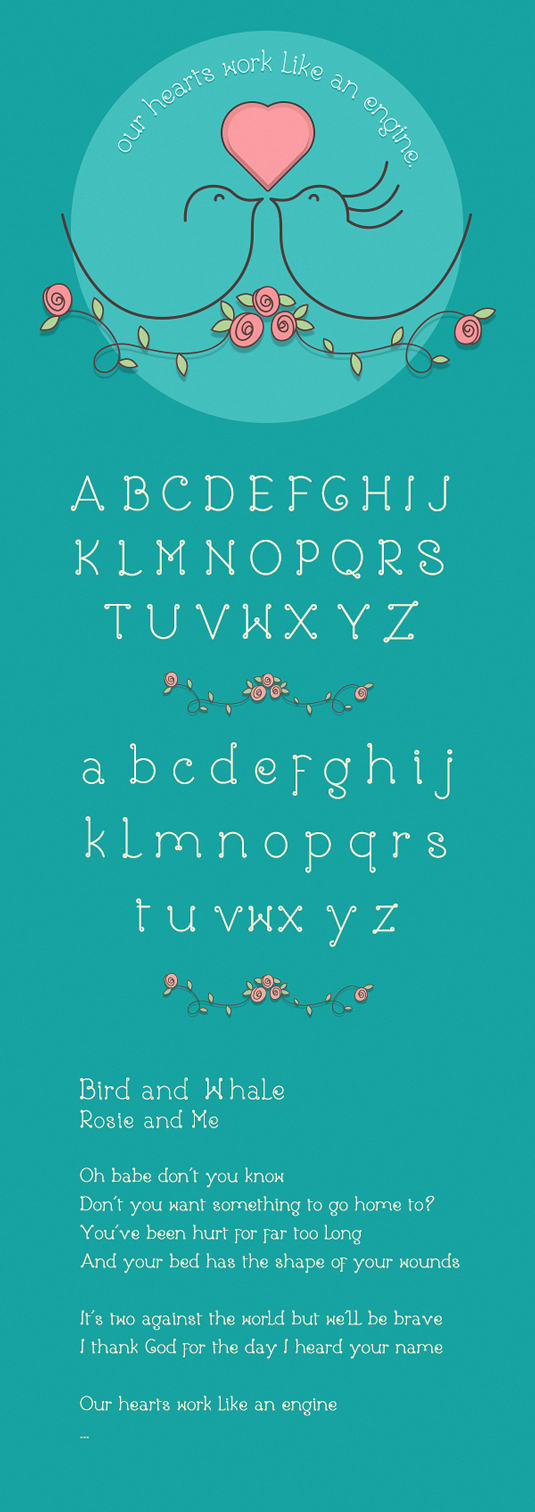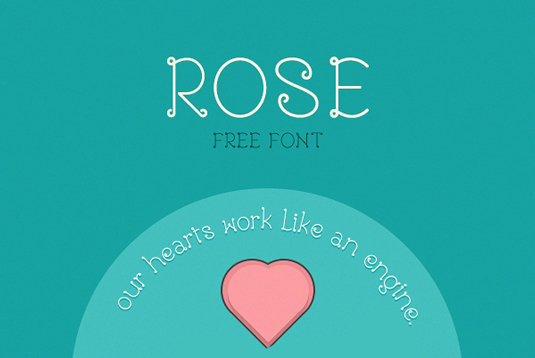
Font of the day: Rose
Every day we showcase the best fonts from around the web. Today it's Rose by Kadu Supanik, which is free to download!
Rose by Kadu Supanik
Today's font of choice is Rose by Brazilian-based design student Kadu Supanik. With a passion for typography, and inspired by the band Rosie and Me, Supanik developed the font in collaboration with designer Mari Pamplona.